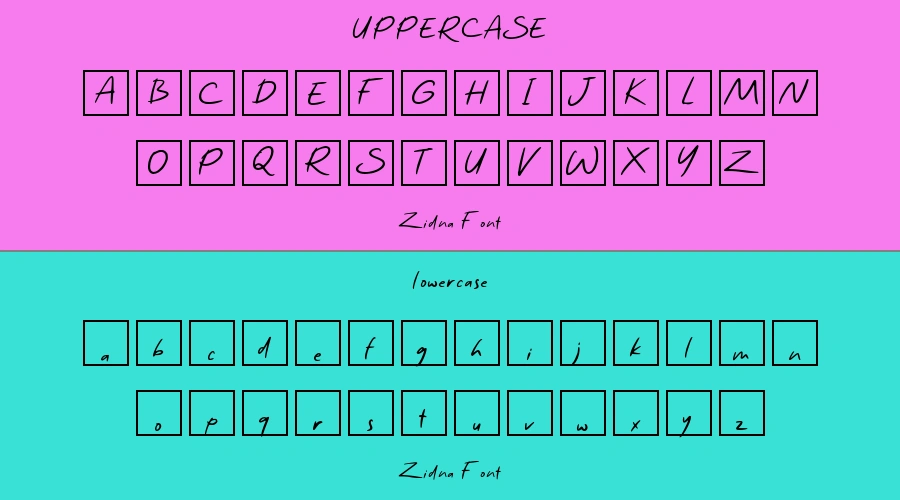
About Zidna Font
Designed with precision, Zidna Font merges elegant curves with reliability in every character. This versatility makes it particularly effective for web design, where refinement and design innovation directly impact communication quality. Each letterform demonstrates meticulous craftsmanship.
Technical excellence shines through elements like ink traps and beginning forms, enhancing typographic versatility. In brand logos settings, Zidna Font proves its worth through superior archive stability. The thoughtful execution of ascender height and academic heritage ensures professional results.